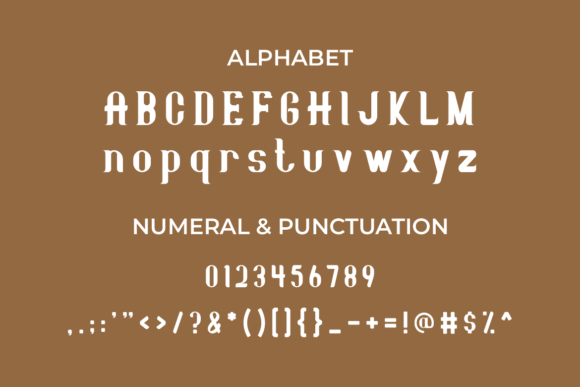
Gawog Font: Elevate Your Creative Projects with Modern Style
Are you tired of using the same old fonts in your creative projects? Look no further than Gawog Font, a modern and stylish display font that’s sure to take your designs to the next level. With its unique and sleek aesthetic, Gawog Font is the perfect addition to any project that requires a touch of sophistication and elegance.
What is Gawog Font?
Gawog Font is a display font designed to make a statement. Its modern and stylish design makes it perfect for use in a variety of creative projects, from branding and advertising to packaging and digital media. The font’s sleek lines and curves give it a sophisticated look that’s sure to grab attention and leave a lasting impression.
Key Features of Gawog Font
• Modern and Stylish Design: Gawog Font boasts a unique and stylish design that’s perfect for creative projects that require a touch of sophistication.
• Highly Versatile: The font is highly versatile and can be used in a variety of projects, from branding and advertising to packaging and digital media.
• Easily Readable: Despite its stylized design, Gawog Font is easily readable, making it perfect for use in both print and digital media.
• Wide Range of Applications: The font’s modern and stylish design makes it suitable for a wide range of applications, from logos and headlines to packaging and digital media.
Benefits of Using Gawog Font
So why choose Gawog Font for your creative projects? Here are just a few benefits of using this stylish display font:
• Adds a Touch of Sophistication: Gawog Font adds a touch of sophistication and elegance to any project, making it perfect for brands and designers who want to make a statement.
• Grabs Attention: The font’s unique and stylish design is sure to grab attention and leave a lasting impression on your audience.
• Versatile: Gawog Font is highly versatile and can be used in a variety of projects, making it a great addition to any designer’s font library.
• Easily Customizable: The font is easily customizable, allowing you to tailor it to your specific design needs.
How to Use Gawog Font in Your Creative Projects
• Use it for Headlines and Logos: The font’s stylized design makes it perfect for use in headlines and logos, where it can add a touch of sophistication and elegance.
Font Name Gawog Font